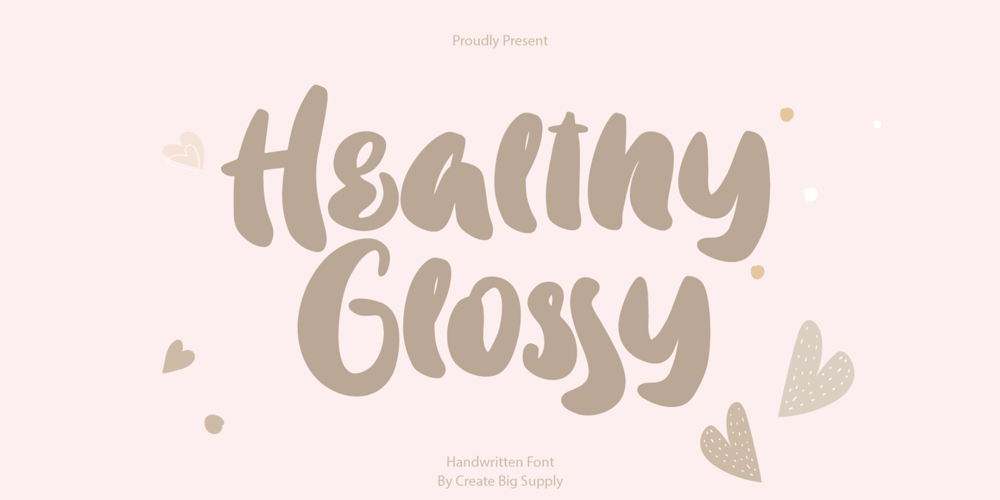
Healthy Glossy Font Family was designed by Irpan Maulana and published by Create Big Supply. Healthy Glossy contains 1 styles and family package options. HealthyGlossy’s uppercase and lowercase letterforms are meticulously crafted to create a harmonious and dynamic balance in your designs. With its extensive set of numbers and punctuations, you have all the tools you need to create visually stunning compositions that grab attention and leave a lasting impression.This versatile font is not limited by language barriers, thanks to its multilingual support. Whether you’re targeting a local or international audience, HealthyGlossy ensures your message is effectively communicated across different languages and cultures.With PUA Encoding, HealthyGlossy unlocks a world of additional possibilities. Access special characters and glyphs to add even more personality and creativity to your designs.